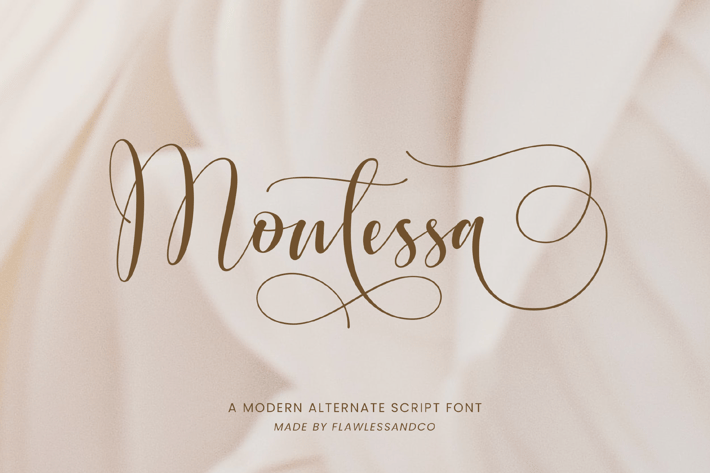
Montessa - Elegant Alternate Script Font
Introducing "Montessa" is a modern alternate script font. Unveil a new era of design with "Montessa," a contemporary alternate script font that seamlessly blends modern aesthetics with a touch of timeless elegance. This font is suitable for any graphic design such as branding materials, wedding invitations, cards, t-shirts, posters, quotes, etc.
Uppercase alphabet A-Z
Lowercase alphabet a-z
Alternate Character
Numbers 0-9
Some punctuation